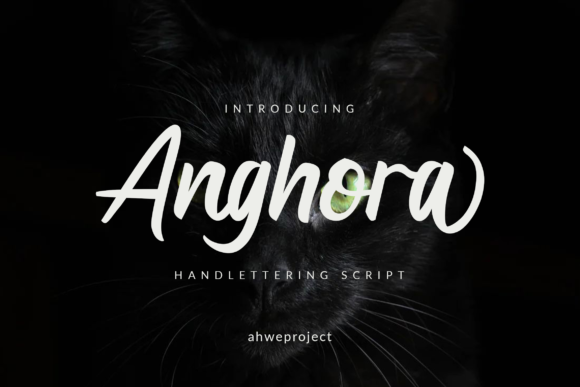
Anghora Font
Introducing Anghora Font, the epitome of elegance and creativity! This enchanting script font, crafted with the utmost care by ahweproject, will add a touch of sophistication and flair to all your design endeavors.
Immerse yourself in a world of limitless possibilities with Anghora Font. Its captivating dry brush texture exudes a personal and intimate feel, making it perfect for adding a touch of charm to your projects. Let your imagination soar as you explore its versatile nature, suitable for a wide range of applications.
Whether you're a seasoned designer or just starting your creative journey, Anghora Font is the perfect companion. Its effortless flow and graceful curves will elevate your designs, transforming ordinary words into extraordinary works of art. Unleash your creativity and let Anghora Font ignite the passion within you.
With Anghora Font, you'll discover a font that's not just a tool but an extension of your artistic expression. Its unique character will leave a lasting impression on your designs, captivating your audience with its timeless beauty.
So, why settle for ordinary when you can have extraordinary? Embrace the power of Anghora Font today and embark on a creative adventure that will leave you inspired and fulfilled.